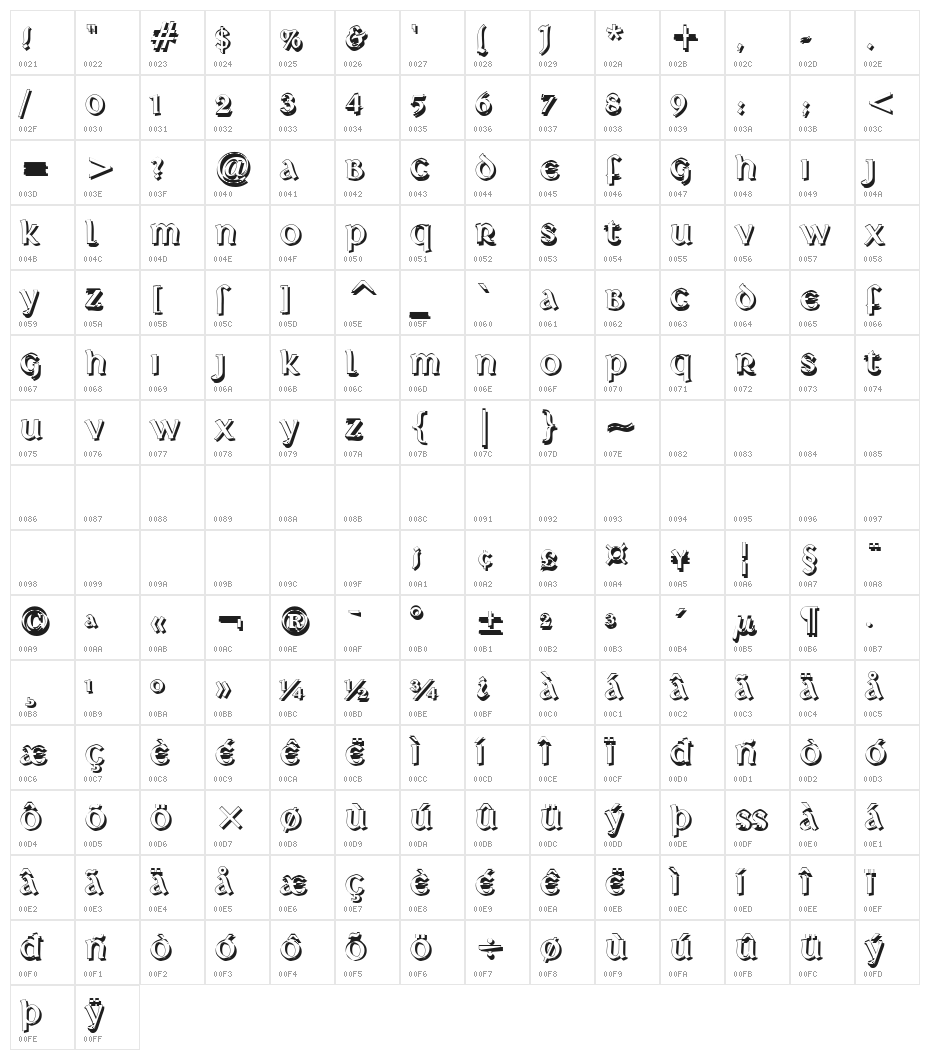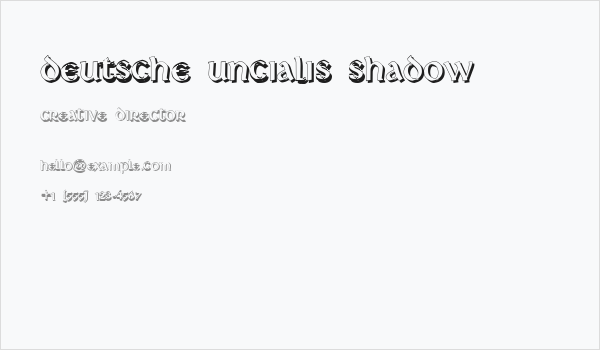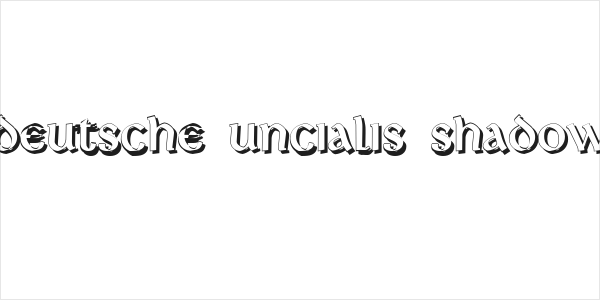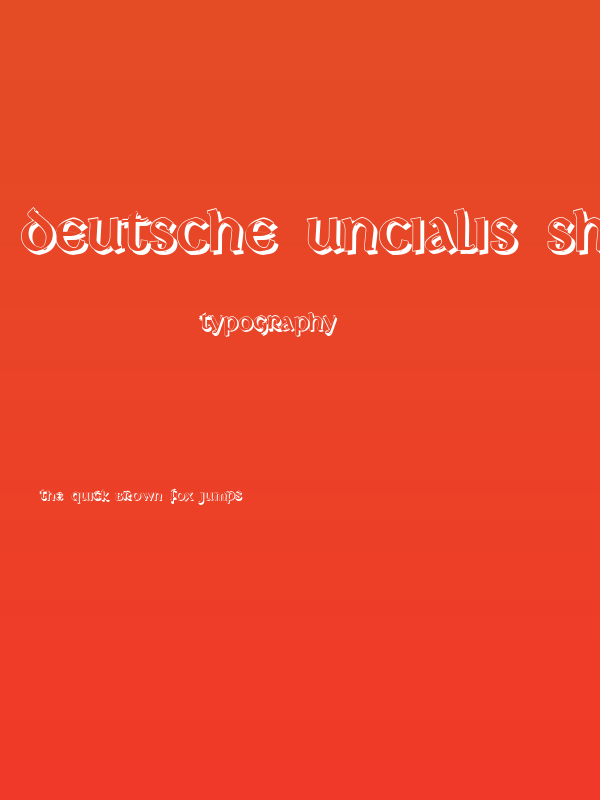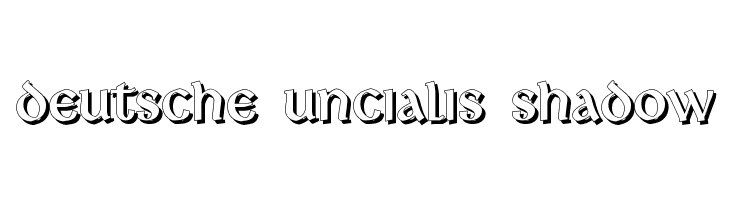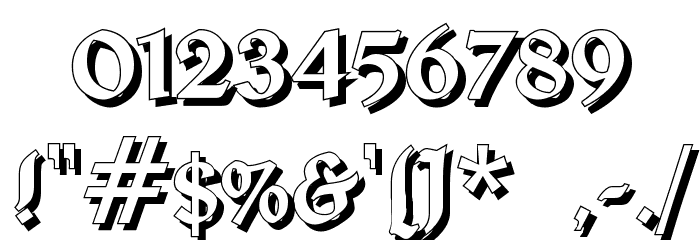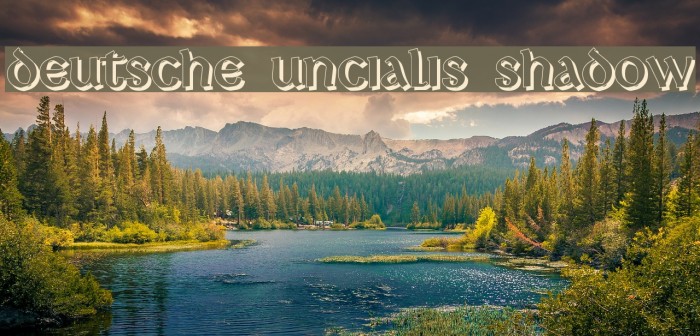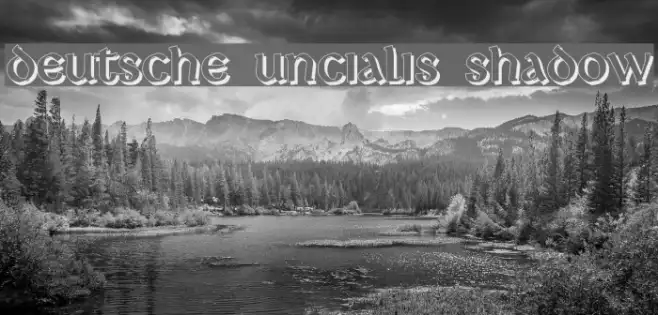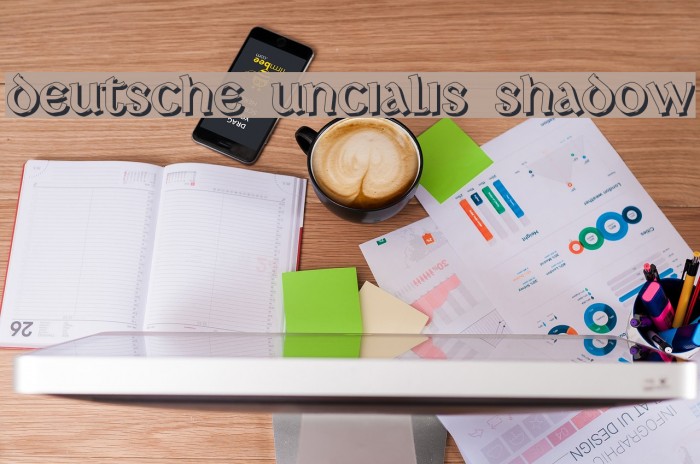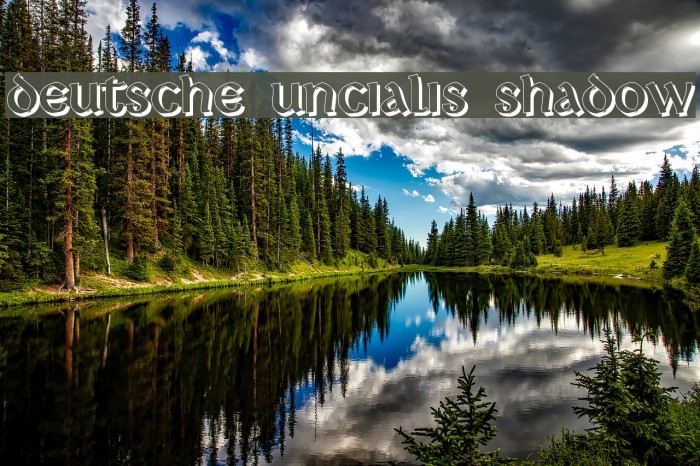
Deutsche Uncialis Shadow Font
Deutsche Uncialis Shadow Description
This font features a distinctive shadow effect that gives it a three-dimensional appearance. The characters are bold and have a strong presence, with a unique blend of traditional and modern elements. The strokes are thick, and the shadow adds depth, making each letter stand out. The overall design is decorative, with a hint of vintage flair, making it suitable for eye-catching displays. The font maintains a consistent style across uppercase, lowercase, numbers, and special characters, ensuring versatility in various design projects.
| Proposed Projects | Ideal for posters, headlines, logos, and any project requiring a striking, decorative typeface. |